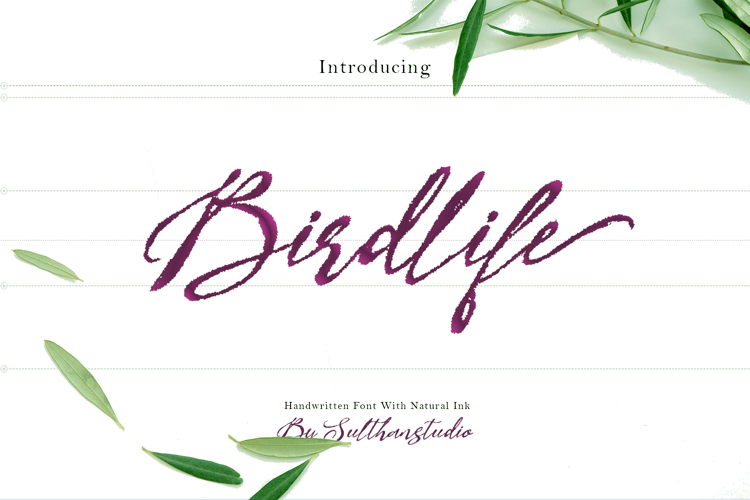
Unleash the expressive power of handmade charm with the Handwritten font. Embellished with the charm of natural ink splatters, this font captures the raw essence of ink on paper, sparking creativity and innovation with every stroke. Each 'Handwritten' character captures the authentic, uninhibited spirit of handwriting, bringing a touch of organic authenticity to your designs. Conveying a sense of natural sophistication, this font evokes freehand writing, where each drop of ink carries a story, waiting to be revealed in your creations. Inject this font's unique charisma into your work—simple yet refined, it's perfect for a variety of intuitive and original designs.